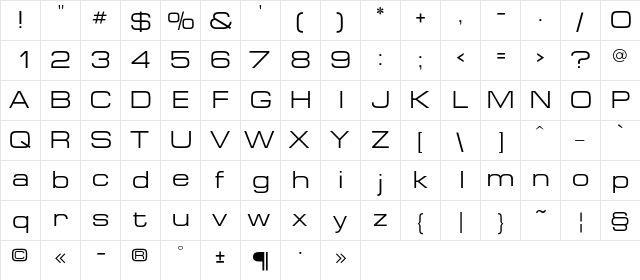
EuropeExtendedC Regular
Design Context for EuropeExtendedC Typeface
EuropeExtendedC offers clean, dependable letterforms without strong stylistic allegiance, making it a practical choice for designers who need flexibility.